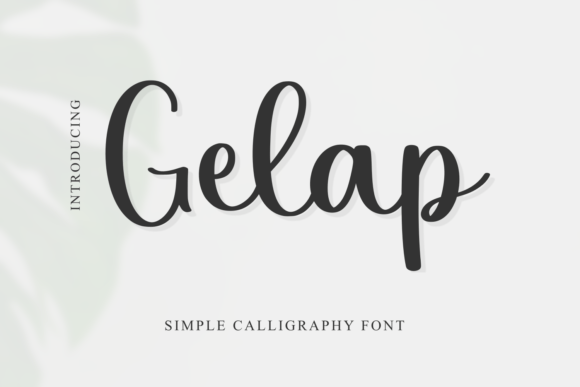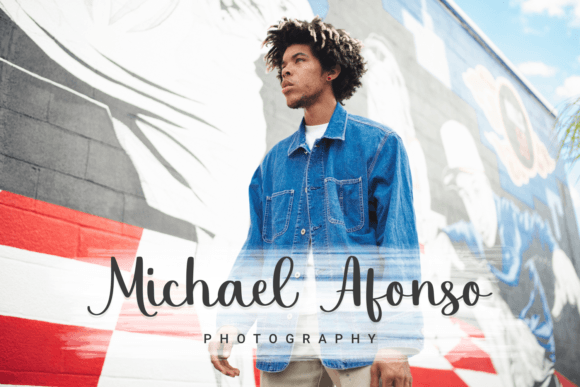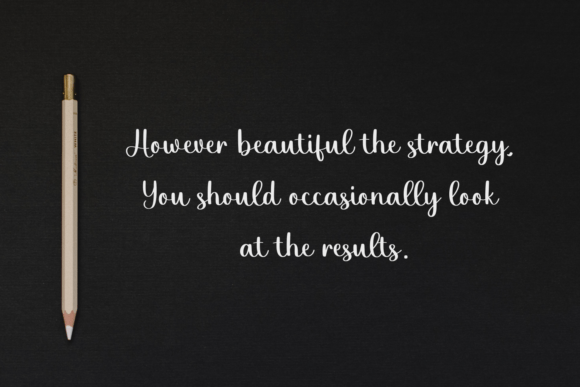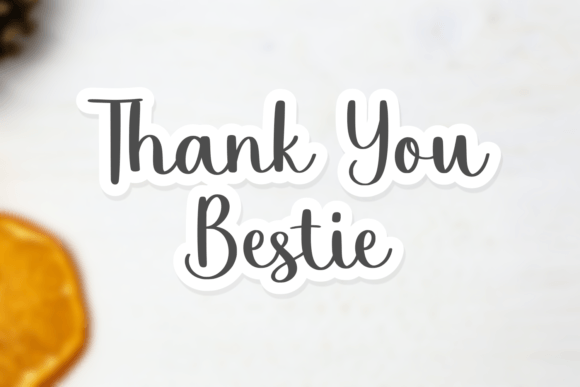
About Gelap
Gelap is a simple handwritten font. Add it to your logos, labels, branding, invitations, websites, quotes, and more, and it will boost your designs and make them a true standout!